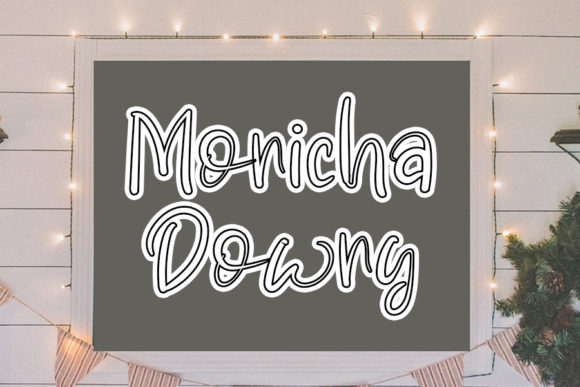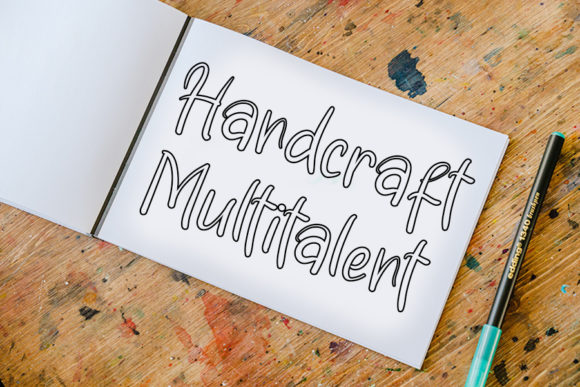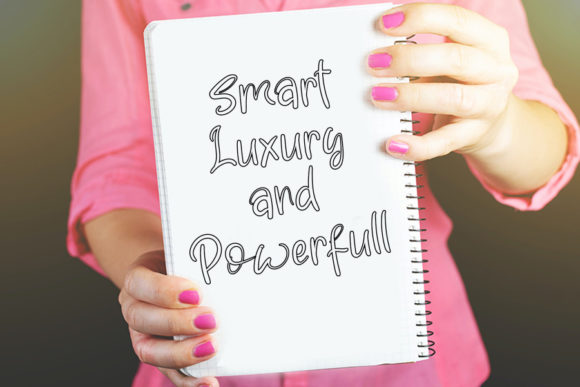
Introduction to Knockout Font
Remember that moment when you stumbled upon the perfect design element for your crafting project? The excitement, the thrill, and the sense of accomplishment that comes with it? For designers, finding the right font can be a game-changer. That’s where the Knockout Font comes in – a flowing and sweet handwritten font that’s sure to brighten up any creative project.
As a valuable design resource, Knockout Font offers a unique playfulness that can elevate your work to the next level. With its transparent background, this font is perfect for designers who want to add a touch of whimsy to their designs. Whether you’re working on a high-quality print project or a digital design, Knockout Font is a great addition to your toolkit.
Key Features of Knockout Font
- Features a transparent background, allowing for seamless integration with any design element.
- Unique, bold design makes it perfect for headings, titles, and other prominent design elements.
- Easy to customize and modify to fit the specific needs of your creative project.
Honest Review: Knockout Font
As a designer, I’m always on the lookout for high-quality design resources to elevate my creative projects. The Knockout Font is one such resource that has caught my attention.
What works well: ✨ The Knockout Font has a unique, bold design that can add a lot of visual interest to any project. The font is available for free download, making it an excellent choice for designers who want to experiment with new typography without breaking the bank. Additionally, the font has a transparent background, which is a huge plus for designers who want to create seamless and professional-looking designs.
However, there are some limitations: ⚠️ The Knockout Font is not suitable for all types of projects, particularly those that require a more subtle or delicate typography. Additionally, the font may not be compatible with all operating systems or software, which can be a limitation for some designers.
- Unique, bold design
Overall, I think the Knockout Font is a great design resource that can add a lot of creativity and flair to your projects. While it may have some limitations, it’s definitely worth checking out, especially for designers who are looking for something new and exciting.
Tips for Getting the Most Out of Knockout Font
Experiment with different font sizes, colors, and combinations to achieve a unique look for your creative project. Use the Knockout Font in conjunction with other design resources to create a high-quality design.
The Knockout Font is ideal for creating eye-catching titles, headings, and text elements for a variety of design projects, including logos, brochures, and social media graphics.